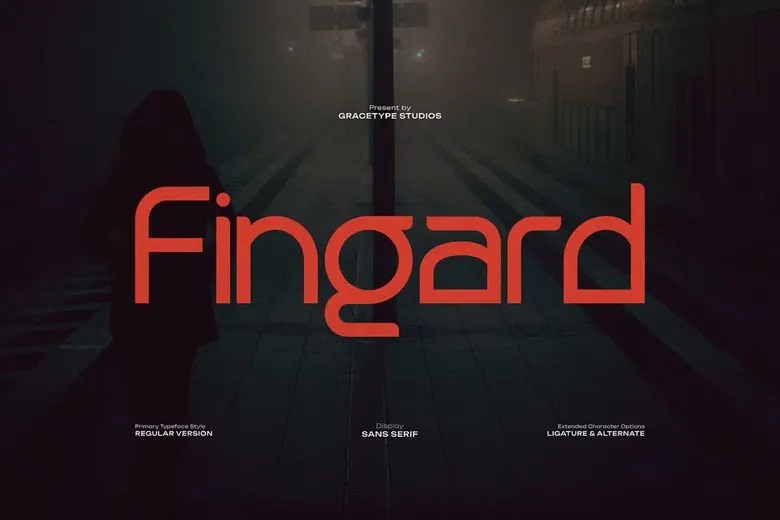
Fingard Font
Fingard is a contemporary, beautiful sans serif typeface created by Gracetypestudio. It offers a polished and clean look to a variety of design projects. Use it for logos, homeware designs, branding, mugs, product packaging, posters, quotes, shopping bags, book covers, t-shirts, name cards, greeting cards, invitations, labels, photography, special events, etc. It offers flexibility and style to any design craft.
Fingard Sans Serif Font